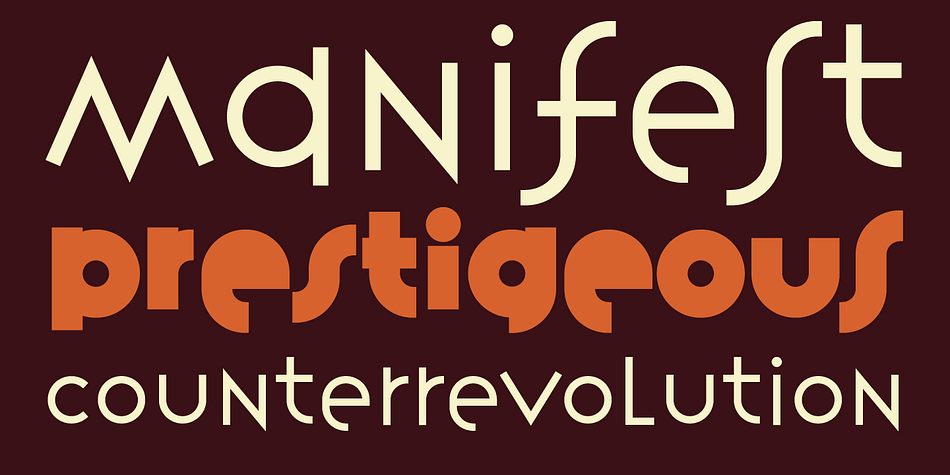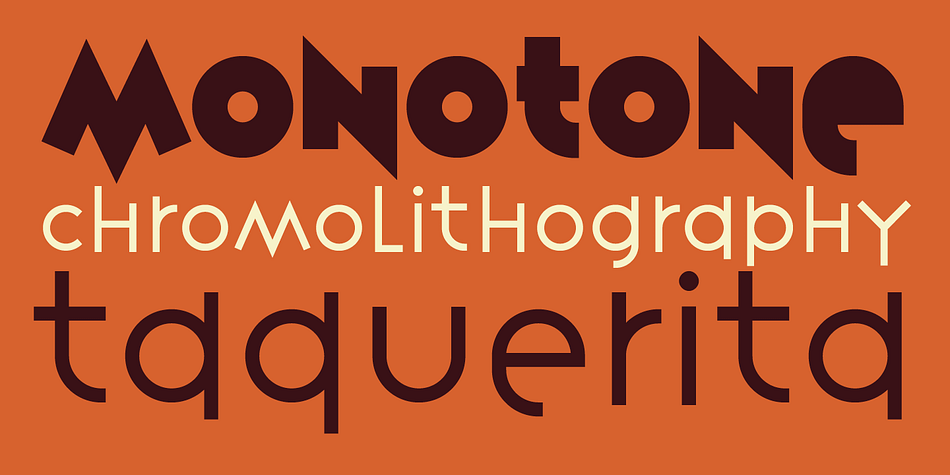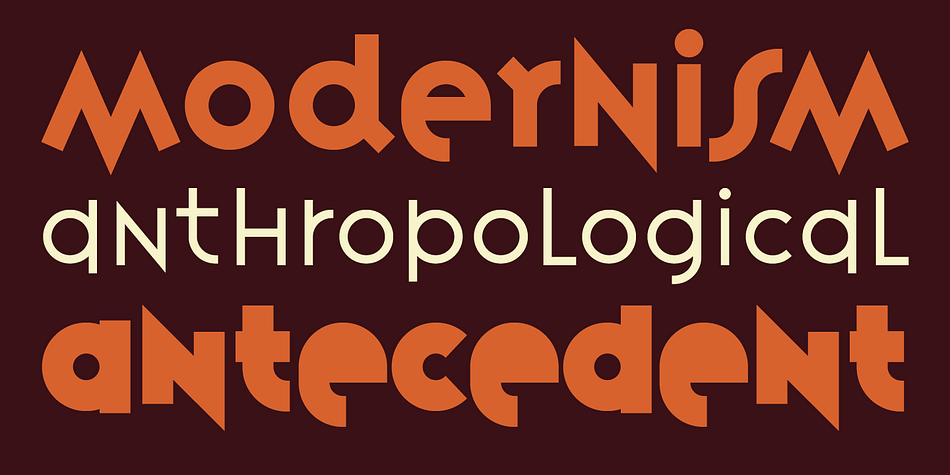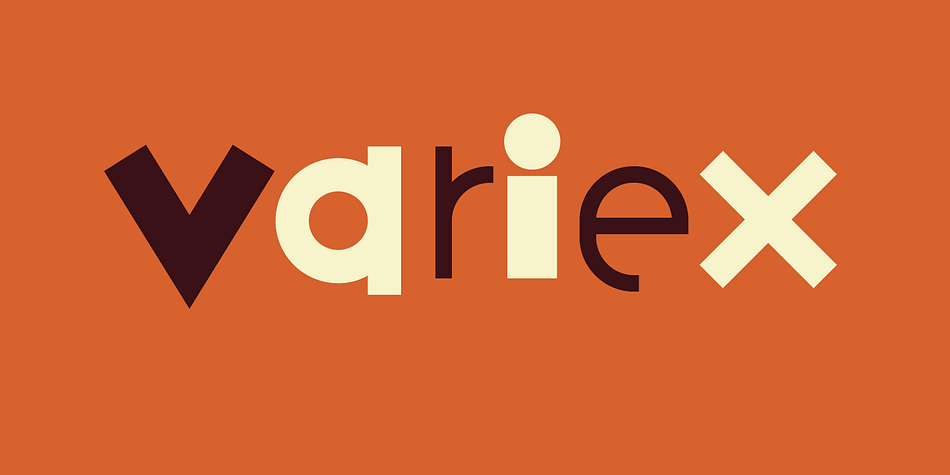
Designed by Rudy VanderLans and Zuzana Licko, Variex is a novelty and kids font family. This typeface has three styles and was published by Emigre.
Variex was conceived as a stroke design; each character is defined by center-lines of uniform weight, from which the three weights are also derived. Varying the weight of a stroke typeface changes the thickness around the center line and thus alters the alignment of some characters. Variex incorporates these variations of alignment in its design, making adjustments to the center lines unnecessary when changing the weight. As a result, the x-height varies among the three different weights.